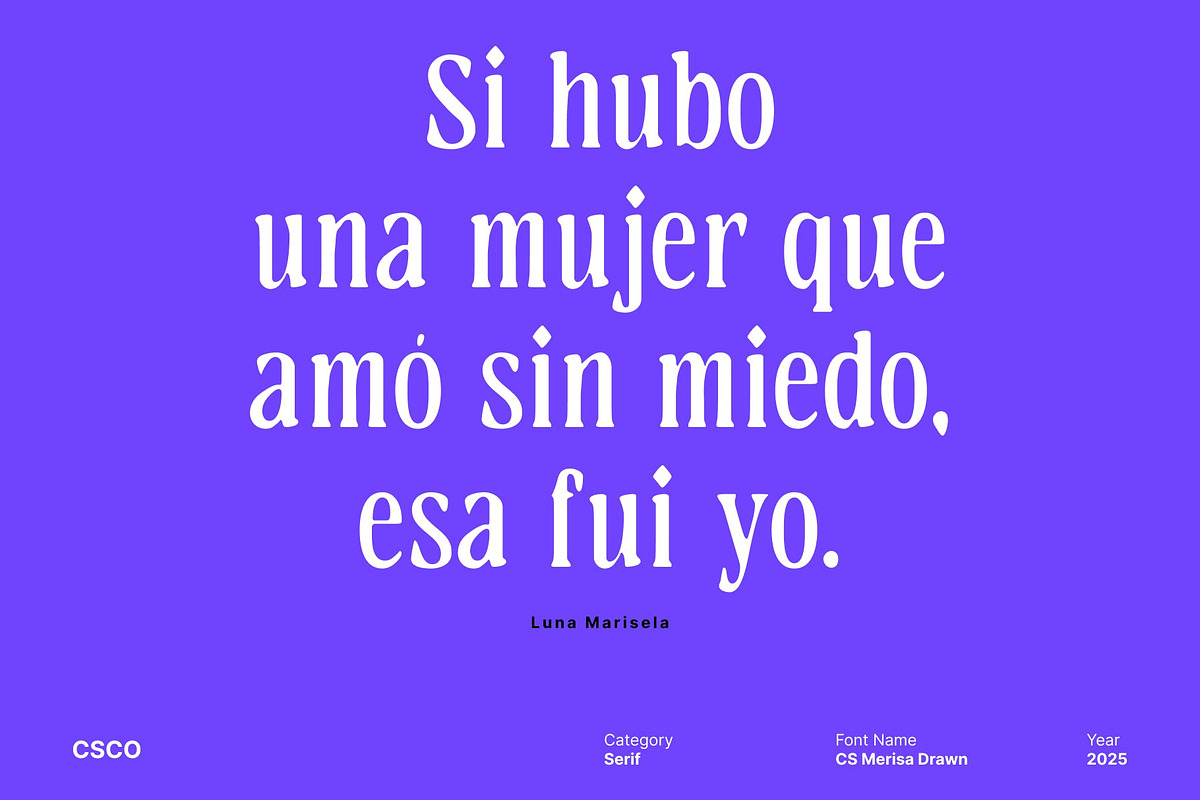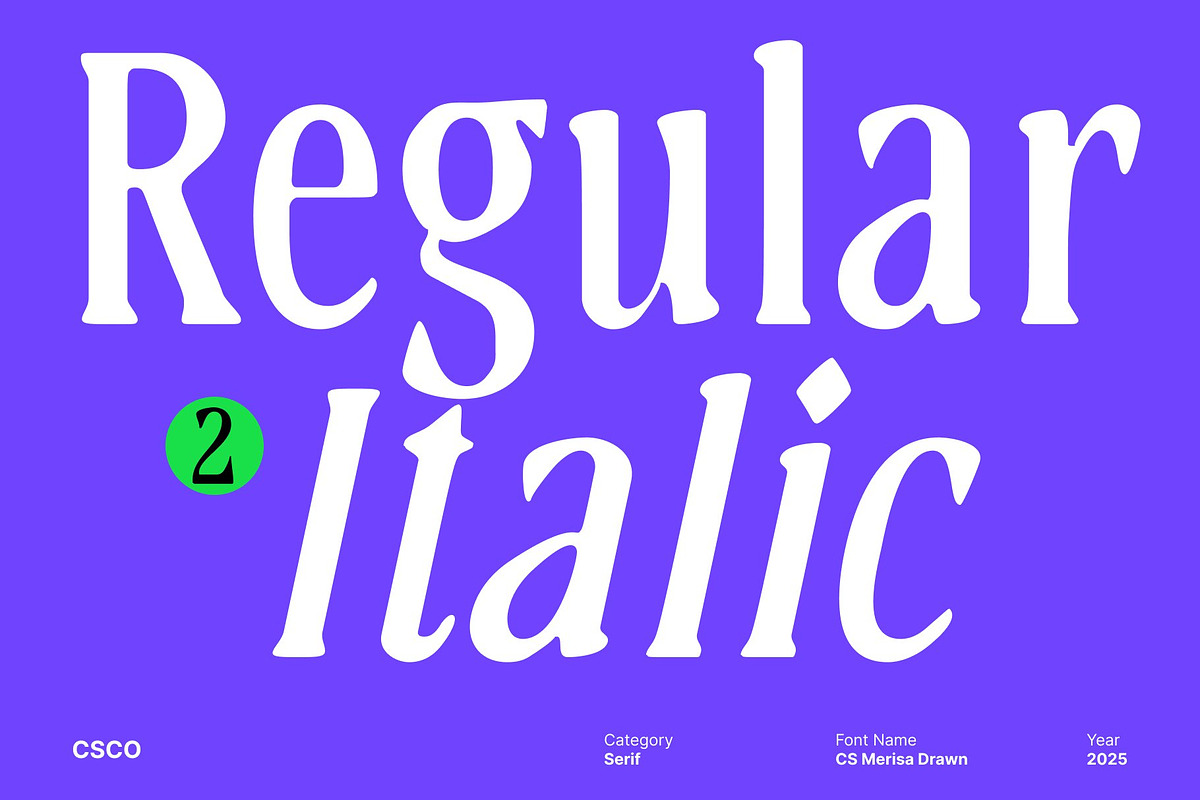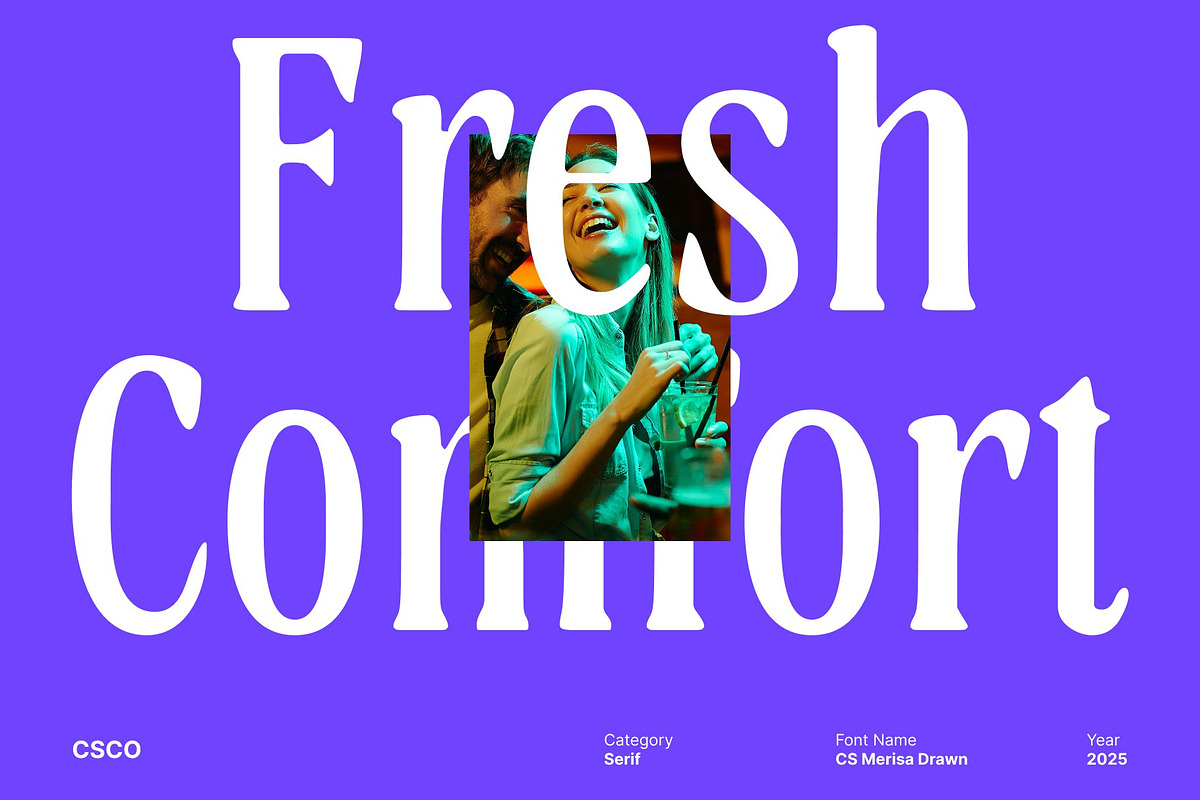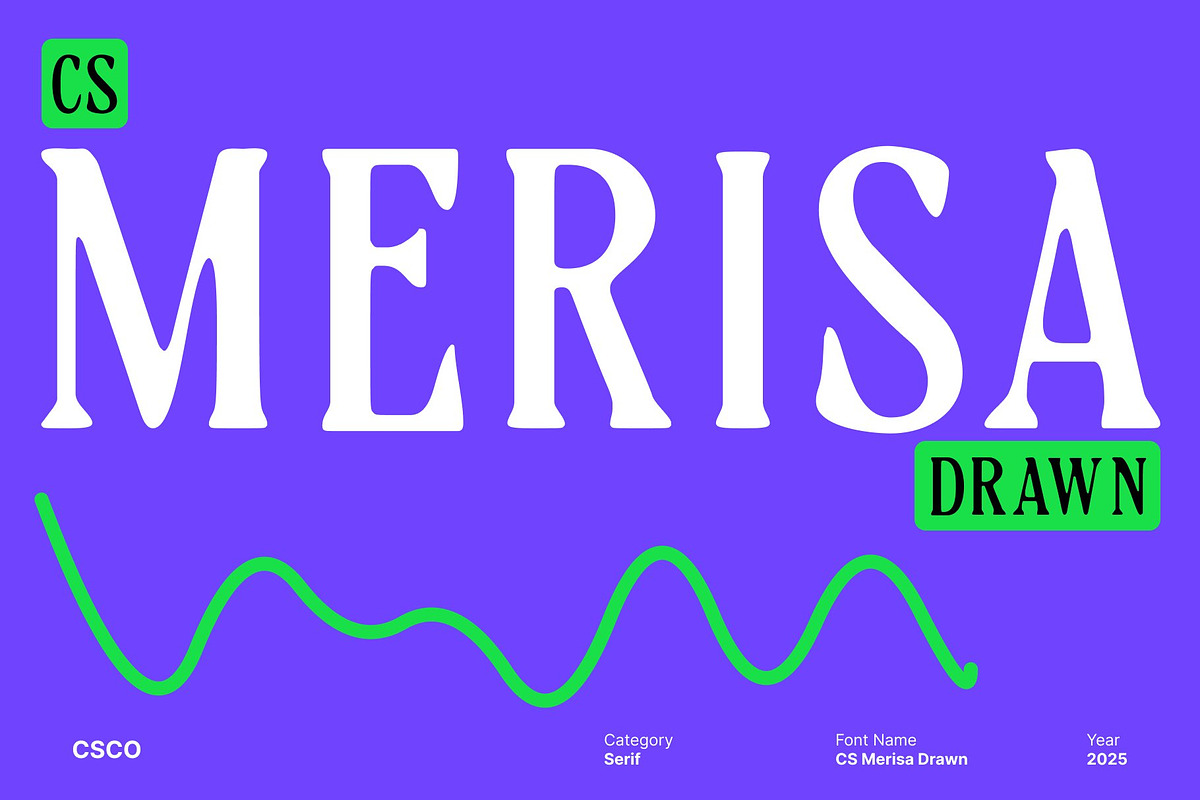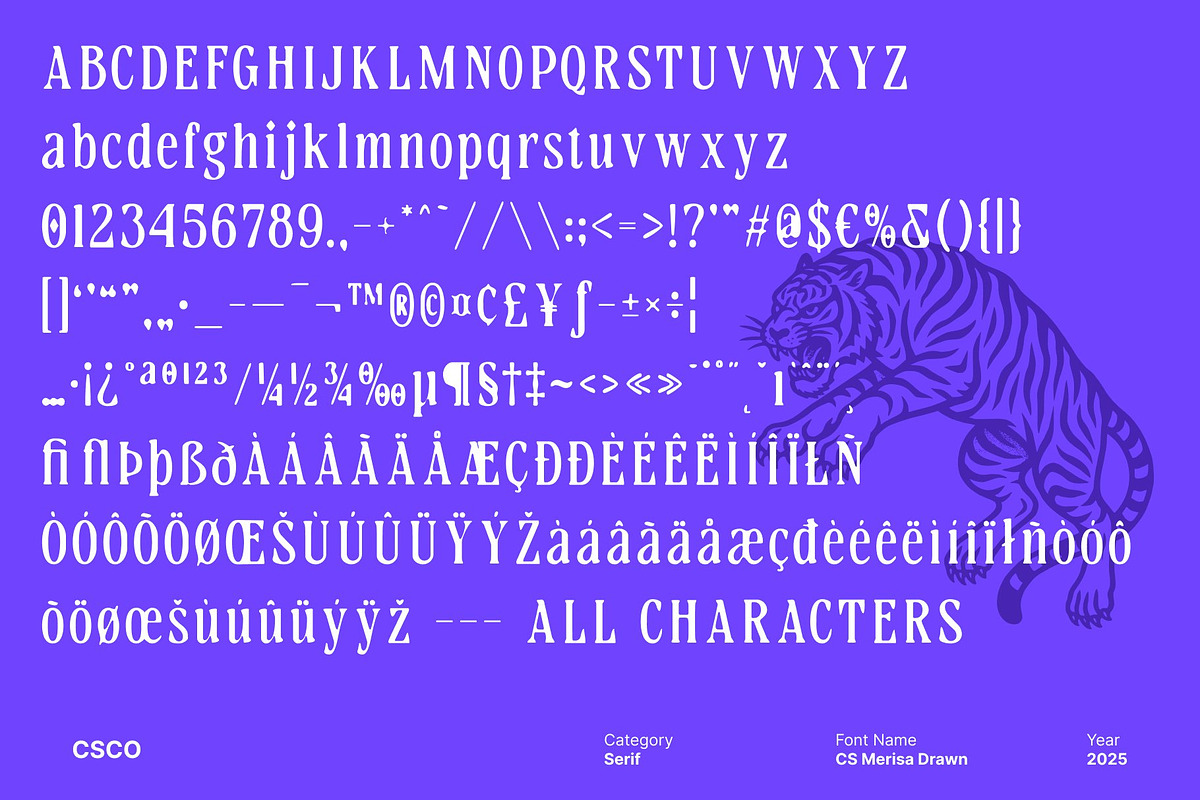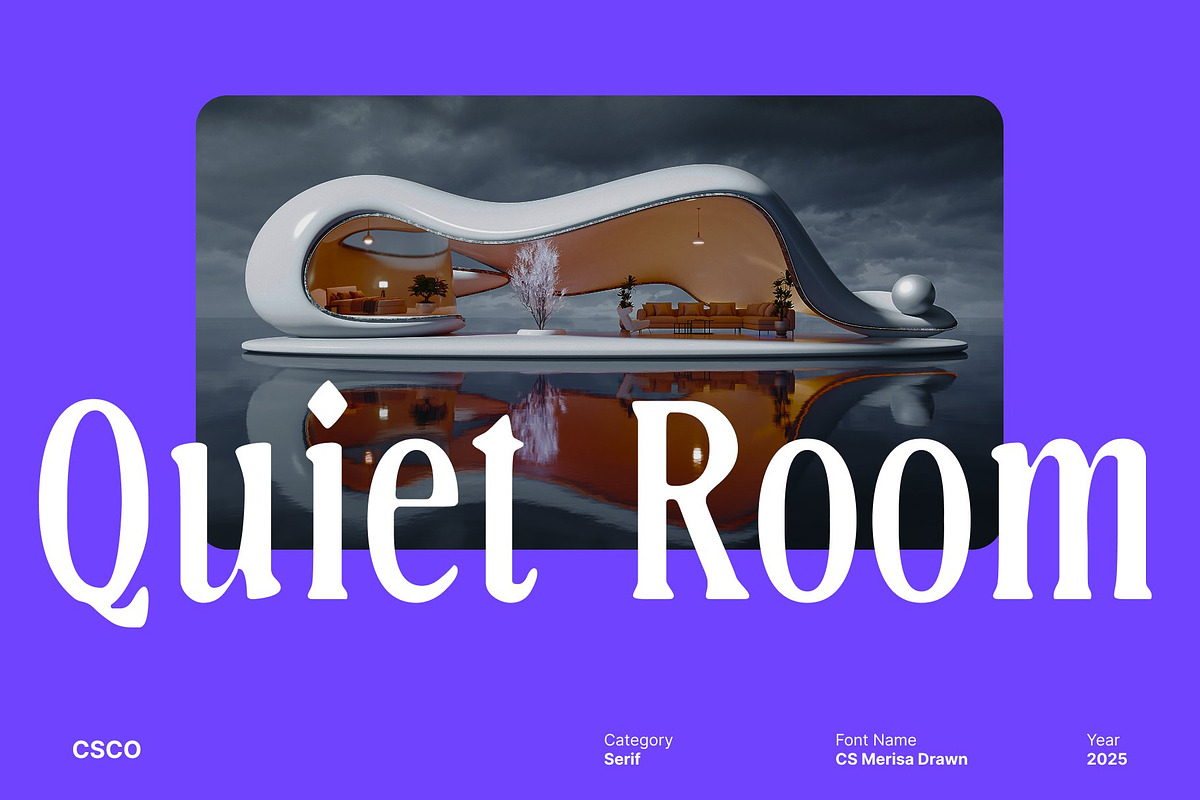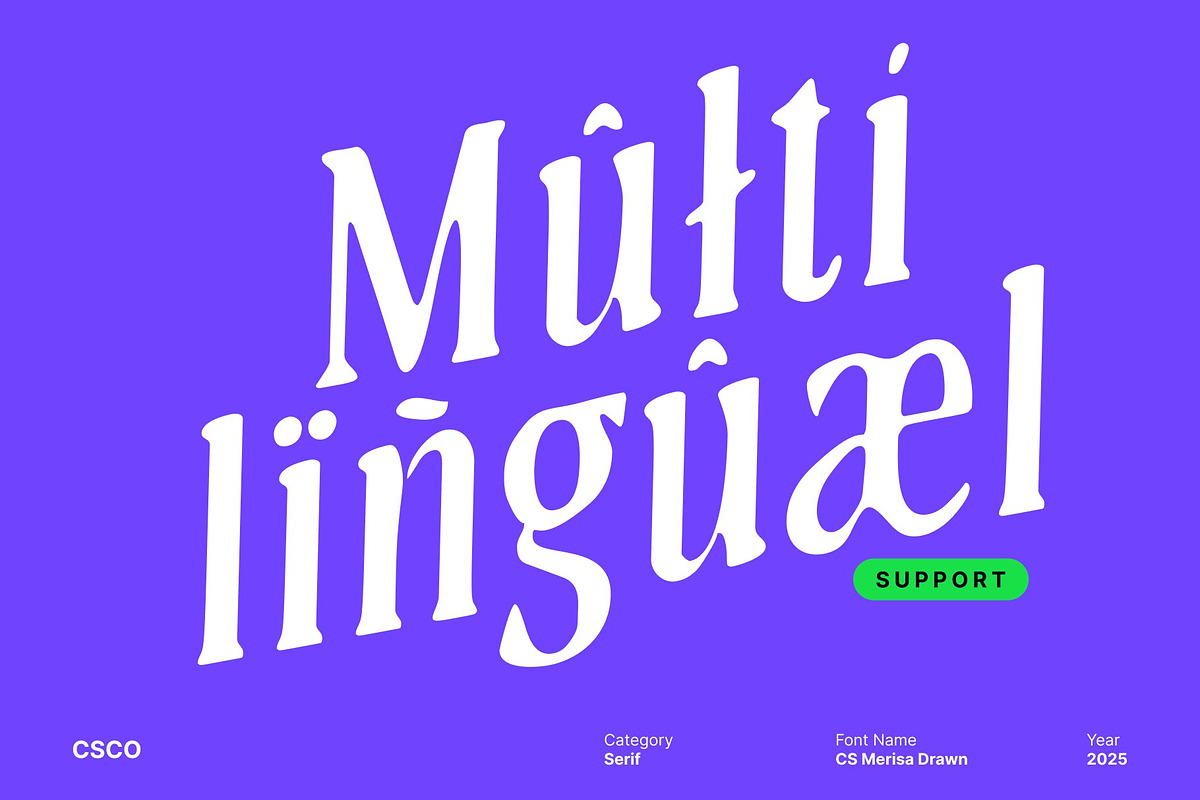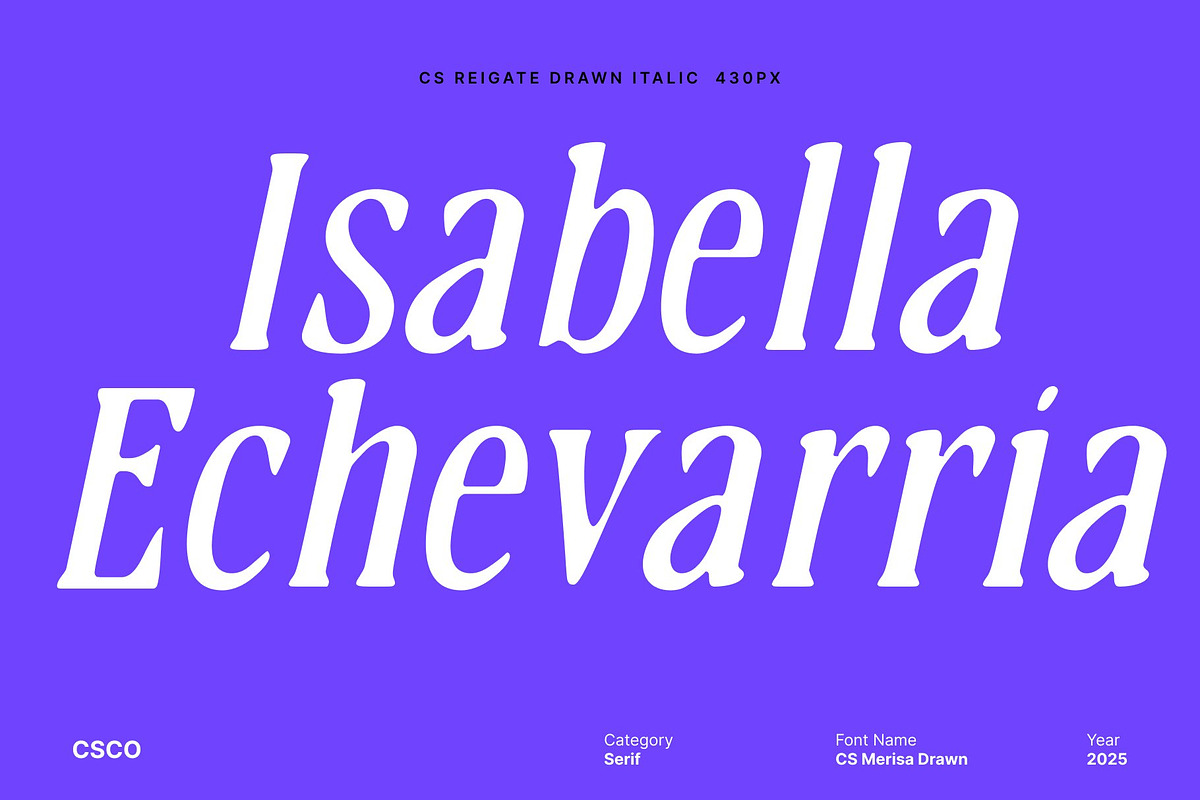
CS Merisa Drawn
CS Merisa Drawn – Modern Classic Serif with Artistic Hand-Drawn Texture
Long, Slender Serifs with Refined Modern Classic Style This is a modern classic serif font designed with long, slender serifs and clean contemporary forms that create an instantly refined appearance. Its graceful proportions and artistic shapes blend traditional serif character with modern sophistication, making it perfect for high-end and visually polished designs. Every letter carries a sense of class, clarity, and crafted artistry.
Hand-Drawn Texture for Soft, Artistic Expression Adding depth and personality, features a subtle drawn effect that introduces a handmade, artistic texture. This soft, expressive detailing gives each character a warm and lively presence, transforming the sleek serif structure into something uniquely human and visually engaging.
Perfect for Luxury Branding and Editorial Artistry With its balanced mix of classic beauty and contemporary precision, excels in luxury branding, editorial layouts, and refined visual identities. Use it for high-end logos, magazine headers, packaging, fashion campaigns, or premium product designs to convey sophistication and an artistic high-end feel.
Versatile for Posters, Creative Layouts, and Premium Design Beyond branding, adapts beautifully to creative posters, expressive promotional materials, and artistic display typography. Its harmonious blend of tradition, modernity, and hand-drawn softness makes it versatile across various design needs. Whether you’re crafting a minimalist editorial or a bold luxury statement, brings refined artistry with a soft, expressive touch.
- CS Merisa Drawn Regular
- CS Merisa Drawn Italic